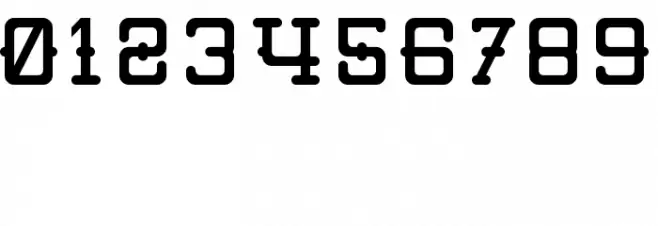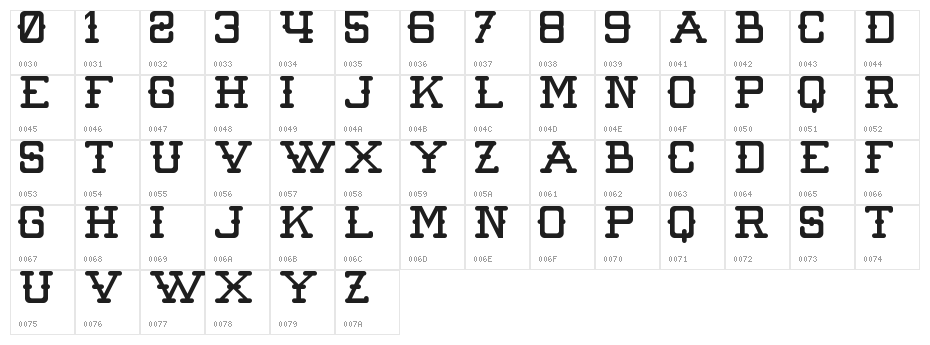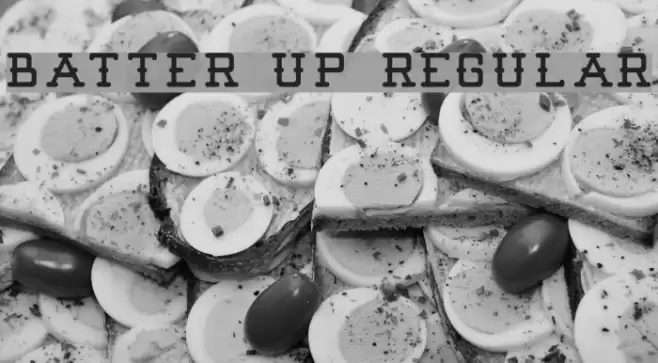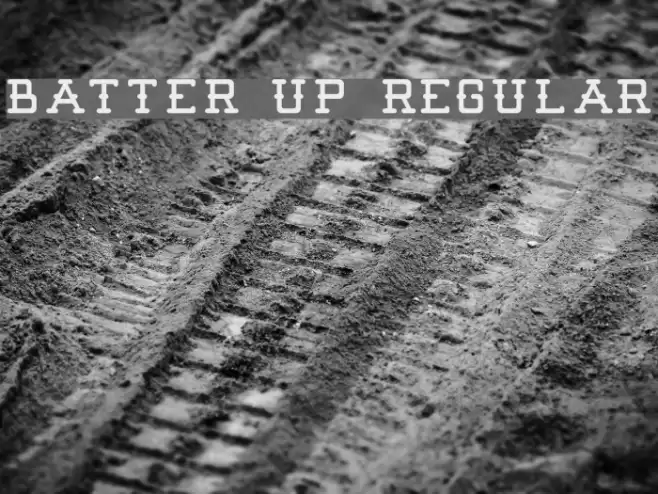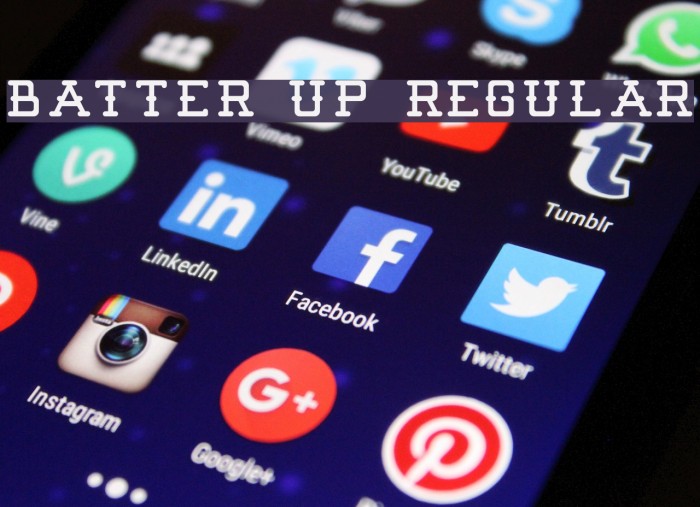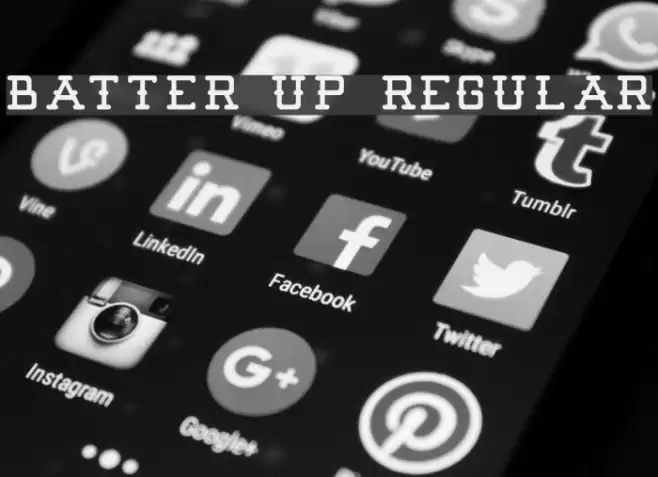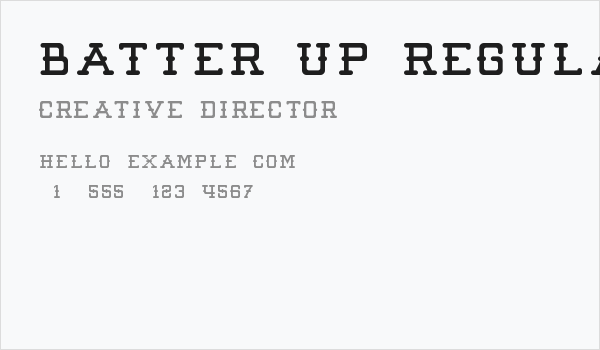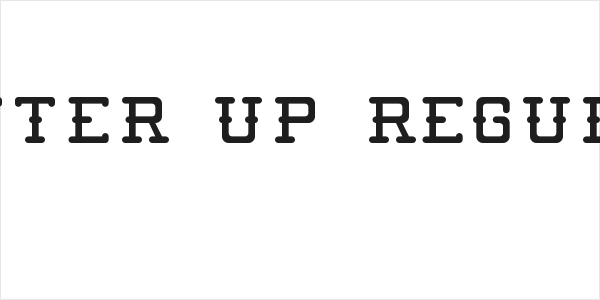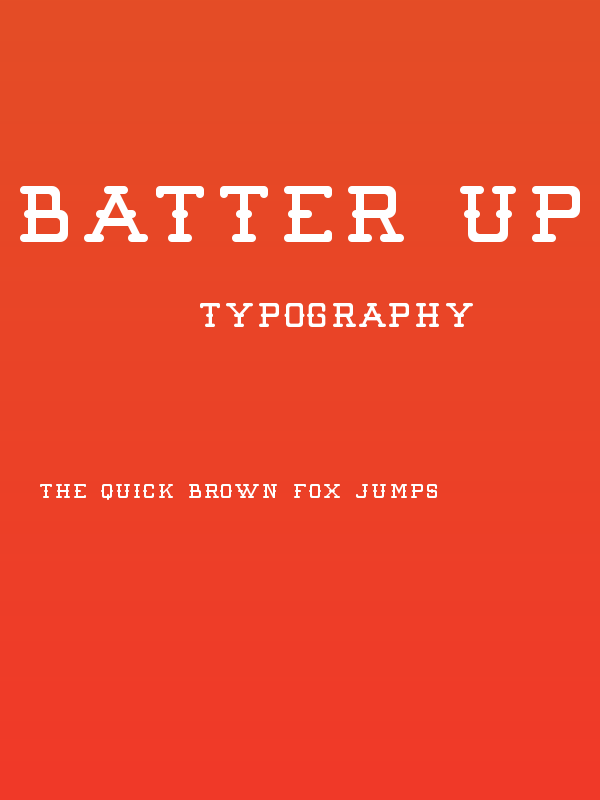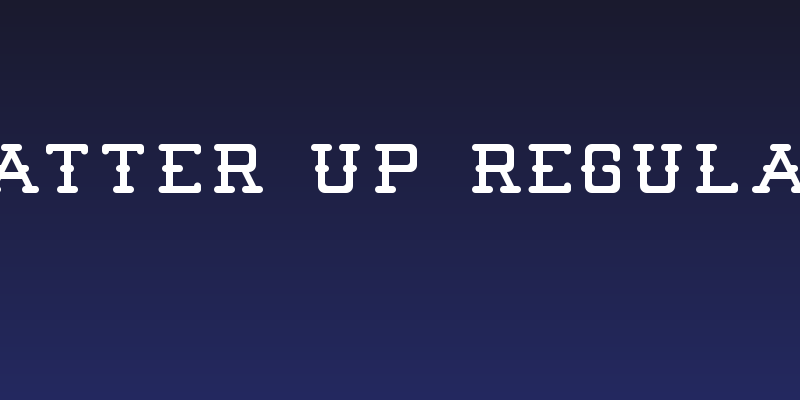
Batter Up Regular Font
Batter Up Regular Description
This font features a bold, slab serif style with a distinctly vintage and sporty feel. The characters are robust and have a uniform thickness, giving them a strong presence. The serifs are prominent and squared, adding to the overall sturdy appearance. The font maintains a consistent weight throughout, with minimal contrast in stroke thickness. Its design is reminiscent of old-school sports jerseys or vintage baseball team logos, making it ideal for projects that require a retro or athletic aesthetic. The characters are evenly spaced, providing a clean and organized look.
| Use Case | Logos, Headlines |
| Proposed Projects | Ideal for sports team logos, vintage-themed posters, and retro branding projects. |